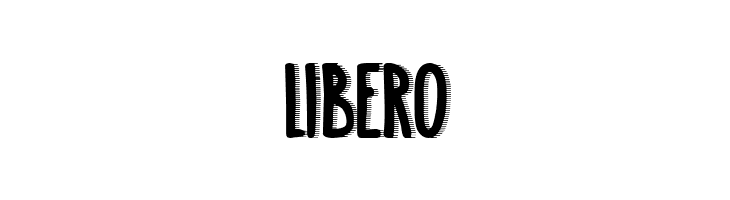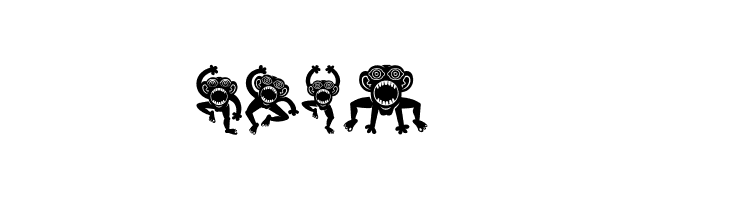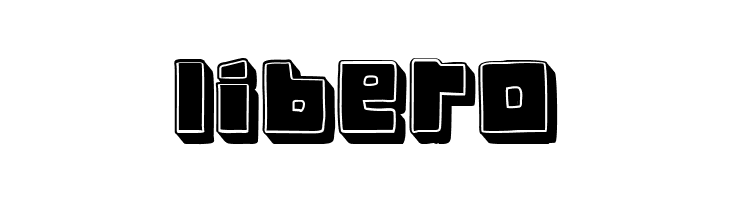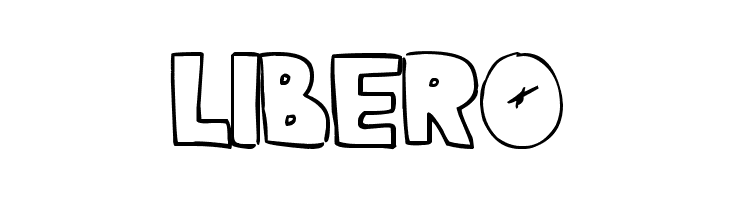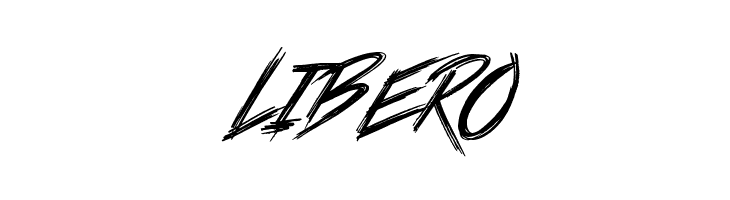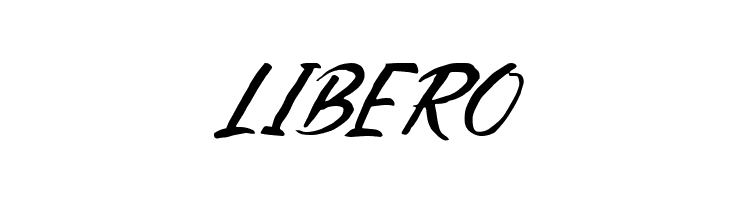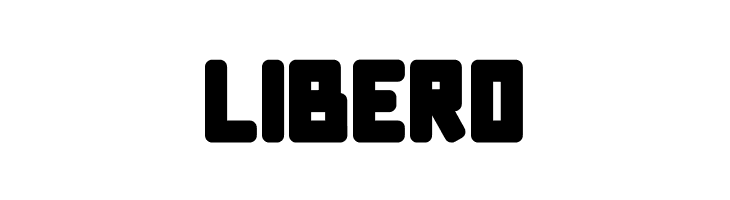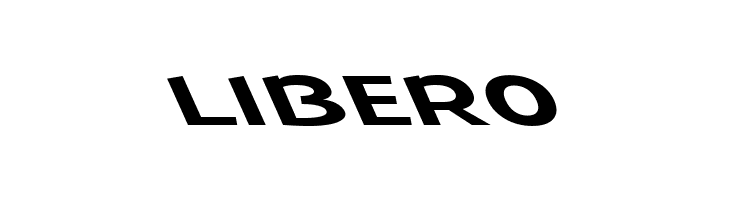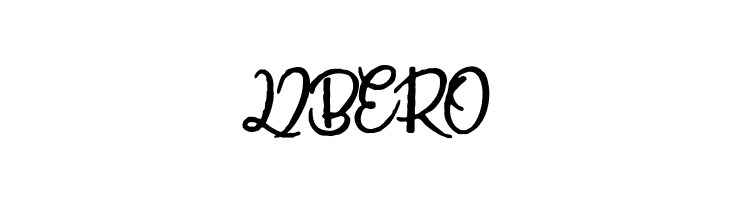
• Crazy Metro
A dynamic, brush-style font with bold, angular strokes.
• Crazy Milktop Girl
A playful, handwritten font with medium contrast and dynamic strokes.
• Crazy Monkey Regular
A playful and whimsical font featuring unique monkey illustrations in various poses.
• Crazy Perspective
A bold, slanted font with a modern and energetic style.
• Crazy Punk
A bold, edgy font with sharp, angular lines and a rebellious aesthetic.
• Crazy Punk Oblique
A bold, angular font with a rebellious, dynamic style.
• CRAZY RAS
( Fonts by Rodrigo German - RASDESIGN )
A playful, hand-drawn font with bold, irregular outlines and quirky details.
• Crazy Rascals
A bold, brush-style font with dynamic and expressive strokes.
• Crazy Regular
A bold, 3D block font with an outlined, shadow effect for a playful and dynamic look.
• Crazy Robot
A bold, futuristic font with a robotic, geometric style and rounded corners.
• Crazy Saigon
A bold, textured font with a distressed, hand-drawn style.
• Crazy Sixties
A bold, geometric font with a retro-modern aesthetic.
• Crazy Sixties Hollow
A bold, hollow font with a retro 1960s vibe and geometric shapes.
• crazy smile
A playful, cartoonish font with expressive faces for each character.
• cRAZY sTYLE
A playful and eclectic font with exaggerated, dynamic characters.
• Crazy Thoughts
A bold, hand-drawn font with a dynamic and expressive brush-like texture.
• crazy Writerz
• Crazy Writing
• Crazy Xeon
A bold and dynamic script font with fluid, cursive letterforms.
• CrazyBeings
A decorative, abstract font with quirky, creature-like symbols.